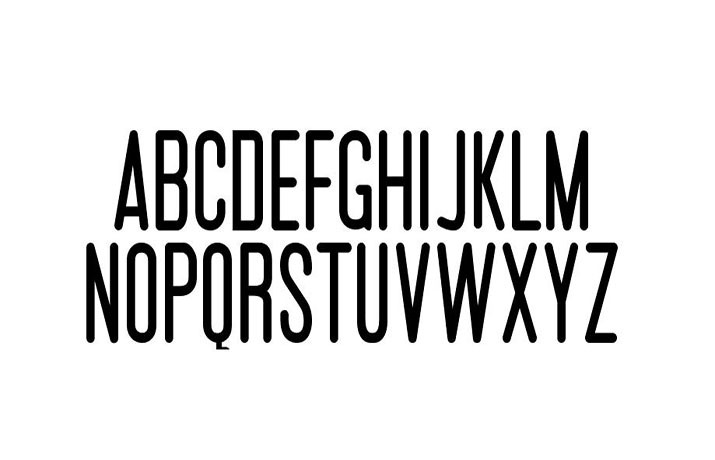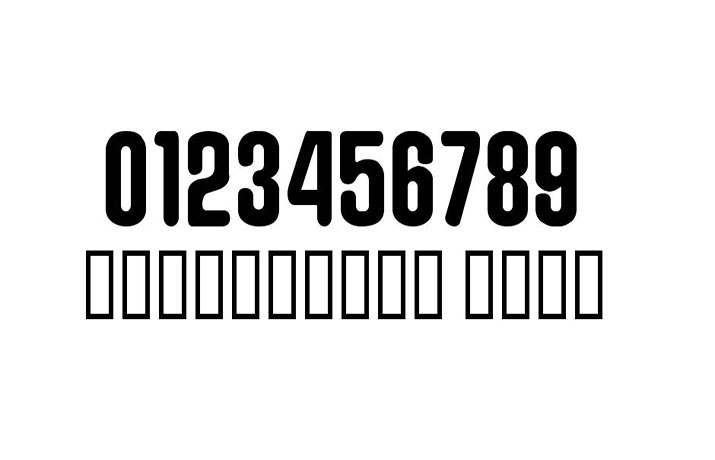
MLB Phillies Font is a modern rounded typeface that comes with a minimalist design. It’s ideal for crafting titles and headings for social media and posters as well.
This font family comes in a single weight with TTF format. This single style contains 107 glyphs like numbers, uppercase letters, and 153 binary stored kerning pairs. Plus, it also supports 34 languages.
It has a tall x-height and rounded corners which creates for adding more efficiency throughout the typeface. While its width and space between letters are the same as the standard size.
The font will fit in perfectly for luxury business and high-end branding designs. As well as social media, banners, flyers, sports, jersey shirts, t-shirts, printing, headers, titles, and website header designs.
Features of This Font:
- Uppercase letters and numbers
- True Type feature
- 107 glyphs and 153 binary stored kerning pairs
- 34 multingual languages support
Style: | Sans Serif, Sports, Display |
- Use it for book covers, product design, social media banners, advertisements, headers, titles, special event cards, product packaging, posters, headers, titles, advertisements, headlines, product packaging, cartoon posters, and comics. , try it. Headers, titles, social media posters, product design logos, flyers, signs, movie posters, special quotes, and more.